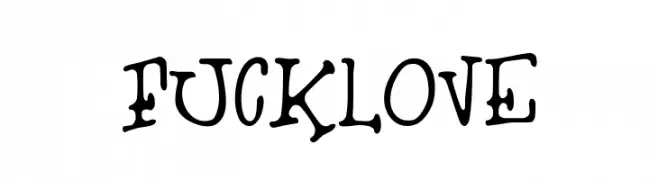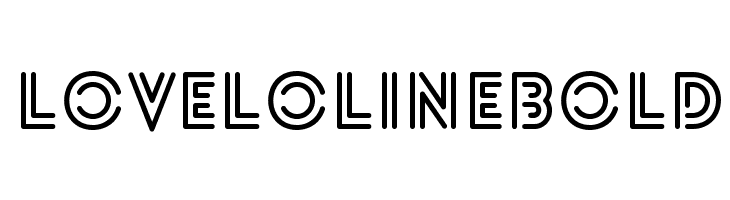
A modern, geometric font with a unique double-line style for a bold and striking look.
( Fonts by Misti's Fonts )
A playful, handwritten cursive font with a whimsical and friendly style.
( Fonts by Justin Biddle )
A playful, casual handwritten font with irregular strokes and a whimsical style.
( Fonts by Justin Biddle )
A playful, handwritten font with a casual and organic style.
( Fonts by Justin Biddle )
A bold, playful handwritten font with a casual and approachable style.
( Fonts by Justin Biddle )
A playful, casual handwritten font with dynamic strokes and a lively appearance.
( Fonts by fontsandfashion )
A playful, handwritten font with smooth, rounded edges and a casual style.
A whimsical and decorative font with a playful, hand-drawn style.